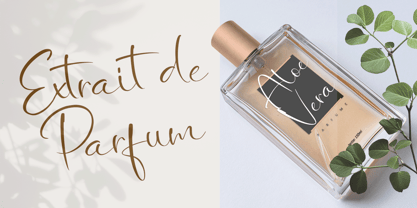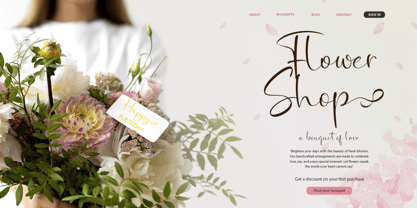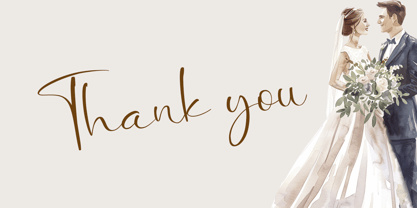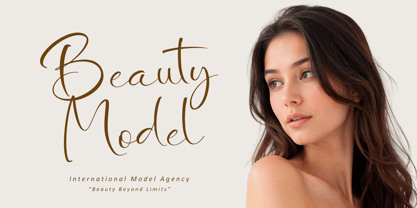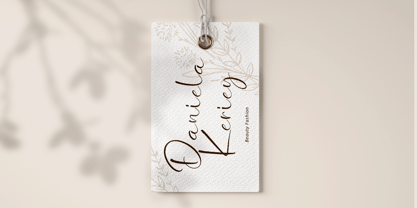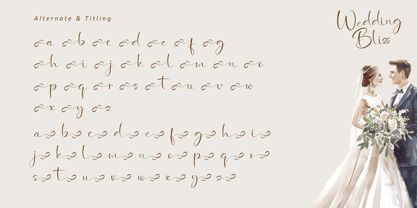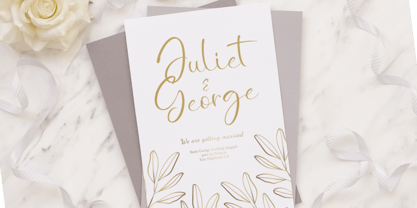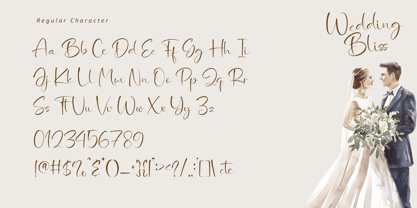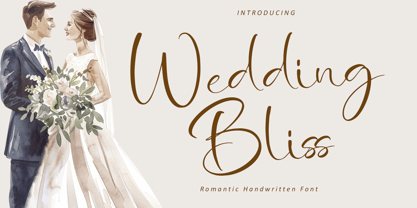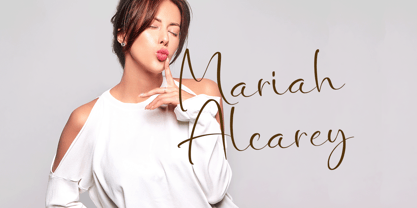
Wedding Bliss
por Letterara
A família de fontes Wedding Bliss foi desenhada por Thomas Aradea e publicada pela Letterara. Wedding Bliss contém 2 estilos e opções de pacote familiar. Saiba mais sobre esta família
Introducing Wedding Bliss, a handwritten script font that flows with charm and sophistication. Its smooth strokes and graceful curves create a timeless appeal, making it the perfect choice for branding, logos, packaging, weddings, social media posts, and creative projects that call for a personal yet elegant touch. With alternates, ligatures, and full PUA encoding, Wedding Bliss gives you the freedom to craft designs that stand out with style and warmth. Let its natural rhythm transform your words into a captivating visual experience.
Designers: Thomas Aradea
Fundição: Letterara